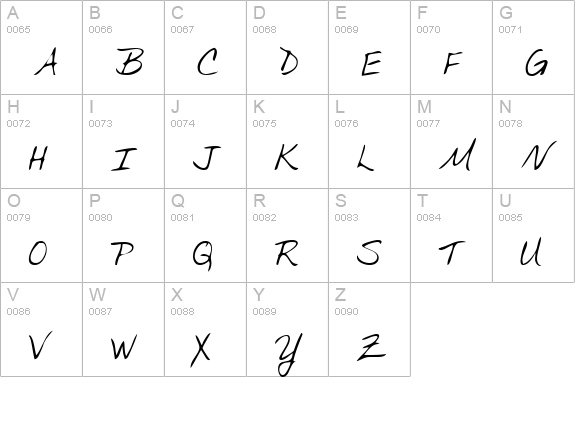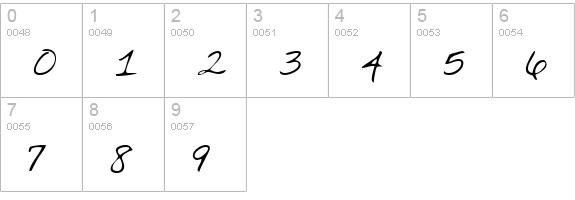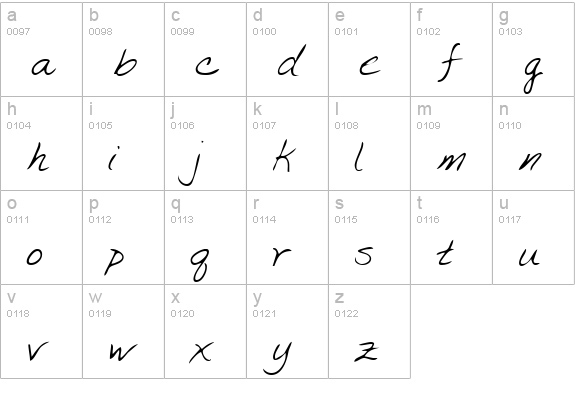
IvysHand Regular Font Details
IvysHand Regular is the standard, neutral variant in the IvysHand typeface family \xE2\x80\x94 well suited to general body text, paragraphs, and standard typographic work.
IvysHand Regular font is a beautifully crafted typeface that exudes elegance and sophistication. Its delicate strokes and graceful curves make it perfect for adding a touch of refinement to any project. Whether you're designing a wedding invitation, a logo, or a stylish website, IvysHand Regular font will elevate your designs to the next level. This font is not only visually stunning, but it also offers a high level of versatility. With its clean and legible letters, it is easily readable in both small and large sizes, ensuring that your message is always conveyed with clarity. IvysHand Regular font captures attention without overpowering the content, making it an ideal choice for any creative endeavor. One of the best features of IvysHand Regular font is that it is freely available to download at FontsMarket.com. You can easily access this font and begin using it in your projects right away, without any hassle or cost. Whether you're a professional designer or a hobbyist, the availability of this font for free allows you to experiment and explore your creativity without any limitations. IvysHand Regular font is a true gem for those seeking a unique and elegant typeface. Its timeless appeal and effortless beauty will captivate your audience and leave a lasting impression. Enhance your designs and bring a touch of sophistication to your work with the freely available IvysHand Regular font from FontsMarket.com.